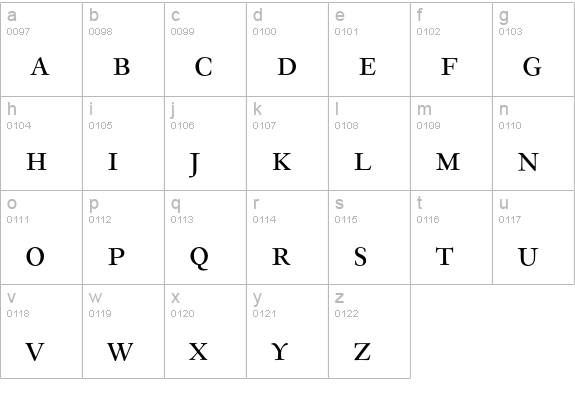
EldoradoText-LightSC font exudes elegance and sophistication with its sleek and modern design. Its slender and stylish letterforms make it perfect for creating a sophisticated and contemporary look in your projects. This versatile font is ideal for a wide range of design applications, from branding to editorial design. Best of all, EldoradoText-LightSC is available for free download at FontsMarket.com. Whether you're working on a professional project or a personal one, this font will add a touch of refinement and class to your designs. Download EldoradoText-LightSC today and elevate your typography game to the next level!